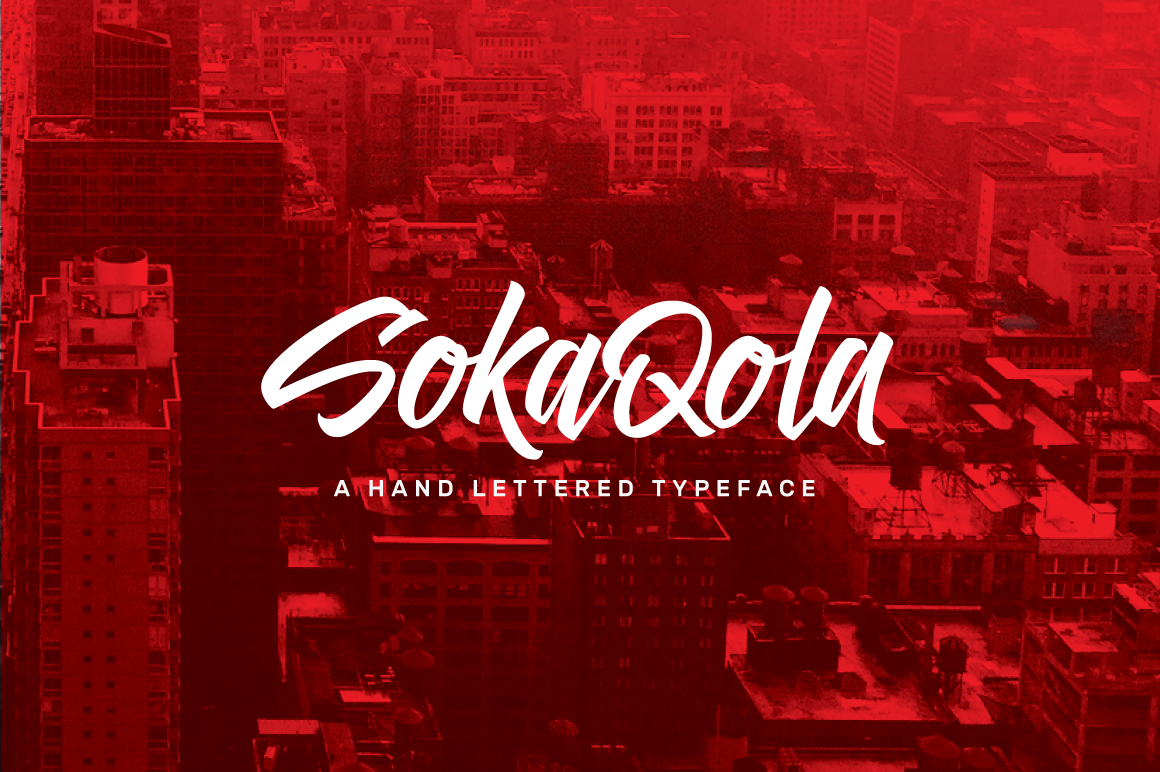
SokaQola Hand-lettered Font
SokaQola is a modern hand-lettered font. It suitable for logo, branding, t-shirt, poster, packaging, book cover, cards and any hand-lettered needs and more.
SokaQola comes with upper and lowercase Standard Characters, Punctuation, Numerals. And some glyphs variation of the OpenType Features such as Standard Ligatures, Stylistic Alternates, and Stylistic set. Accessible in the Adobe Illustrator Glyphs panel, or under Stylistic Alternates in the Adobe Photoshop OpenType menu.